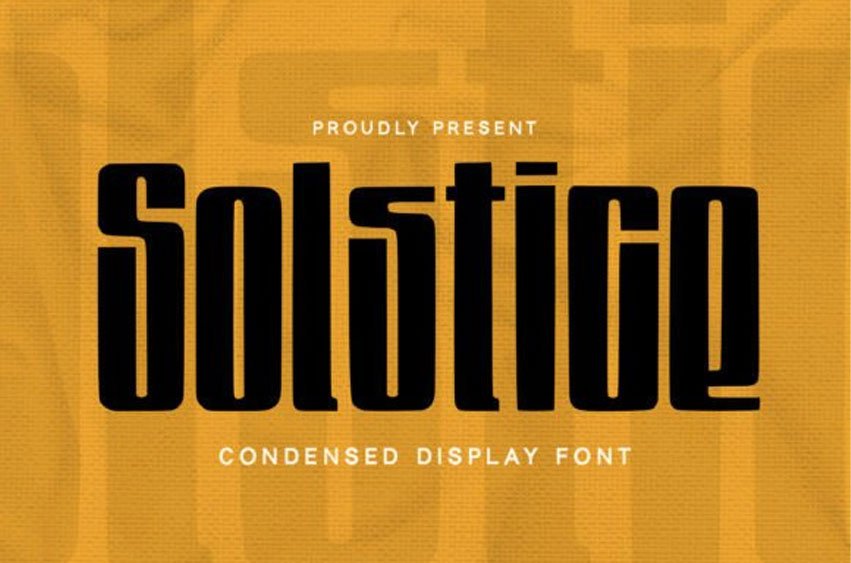
Solstice Font is a modern, authentic, condensed display font that exudes contemporary sophistication. Its clean lines and compact design make it perfect for headlines, banners, and logos, where it adds a touch of urban flair.
With its versatility and bold presence, Solstice commands attention and makes a lasting impression.